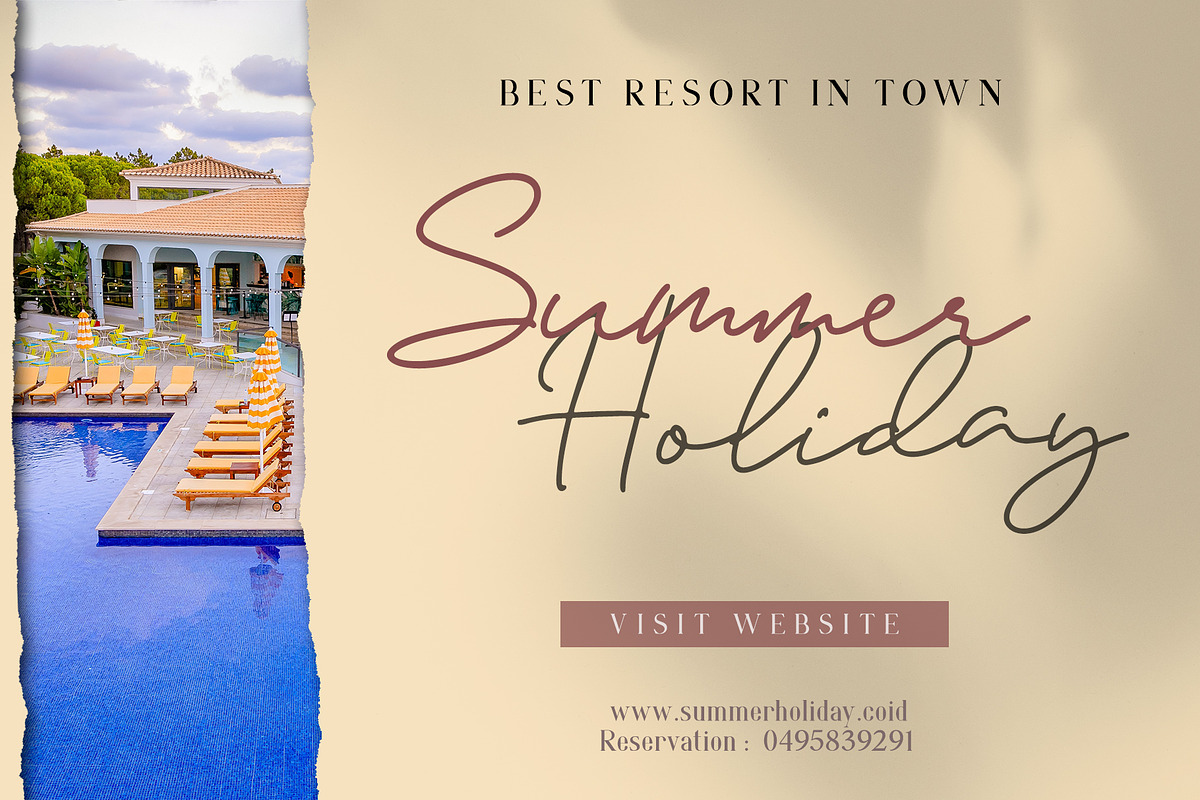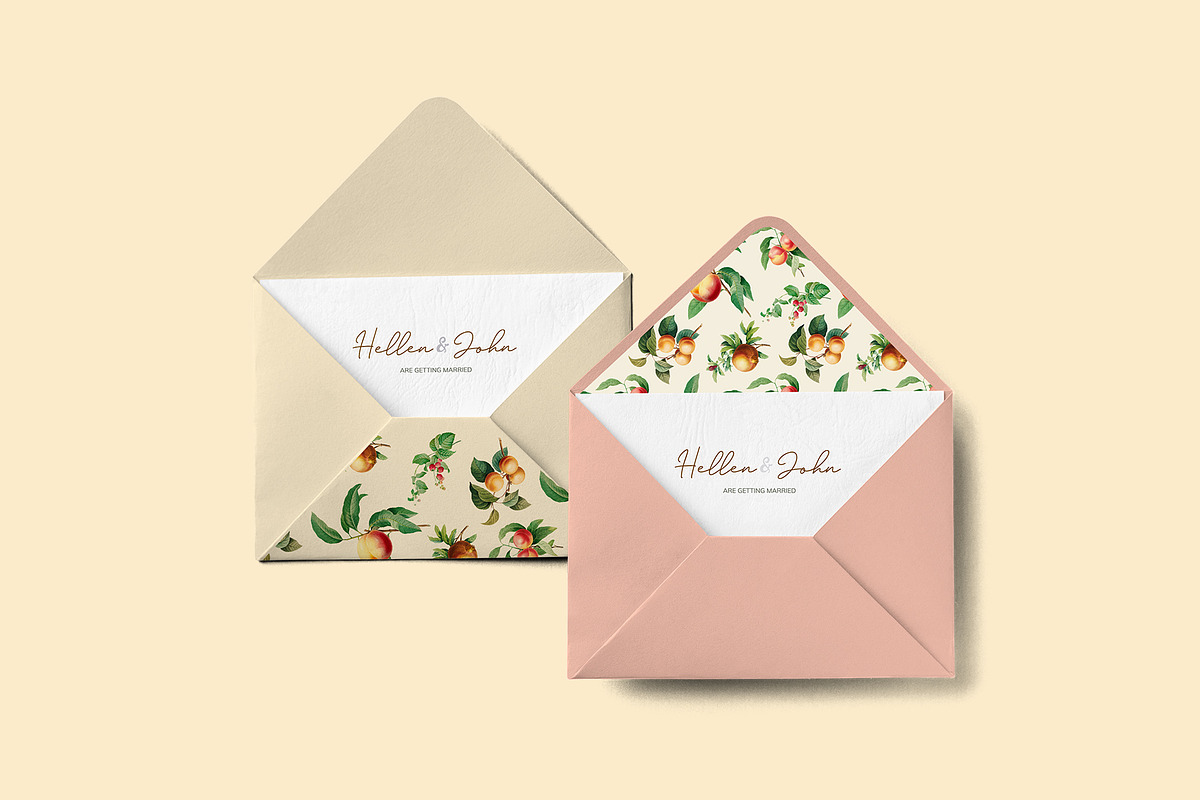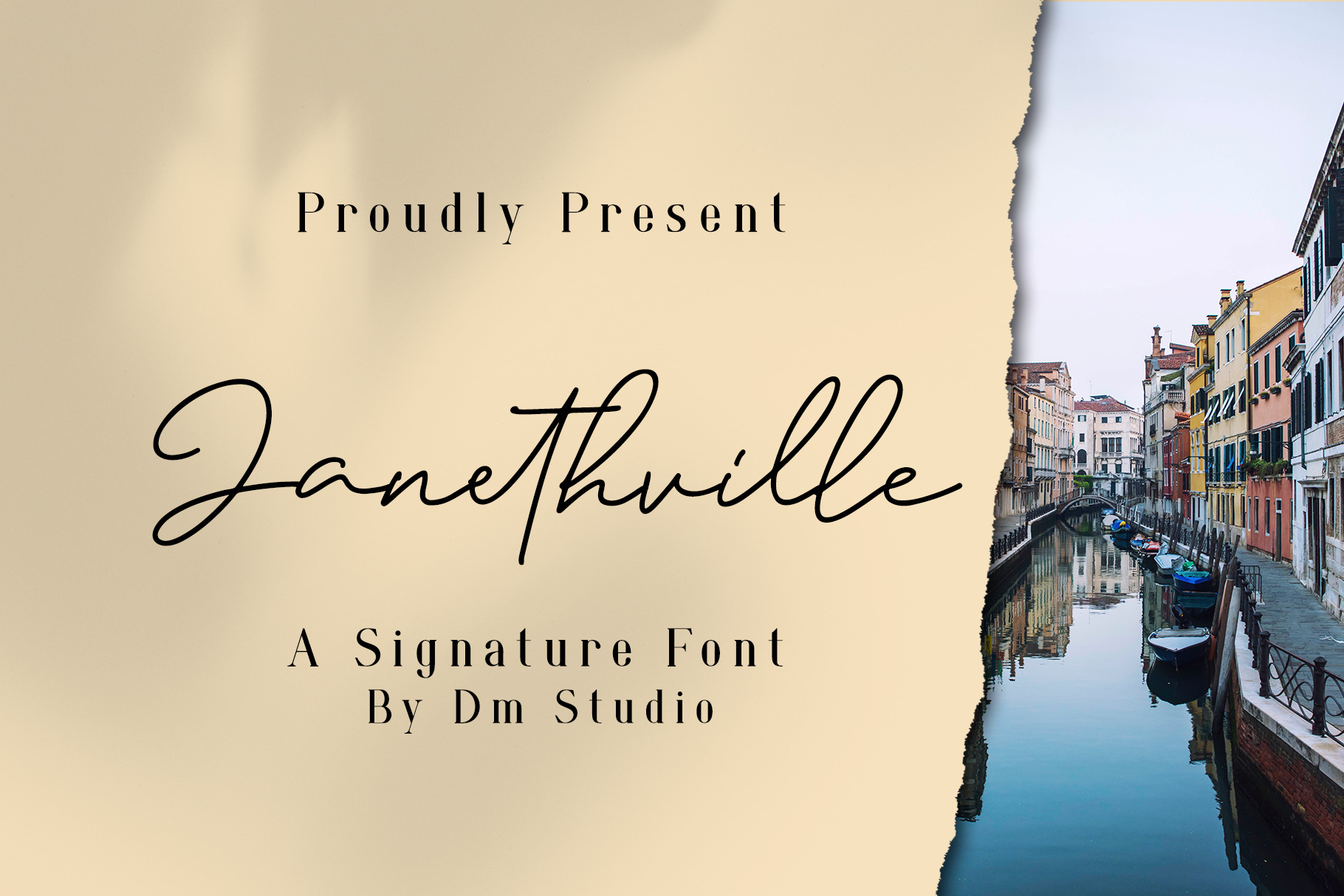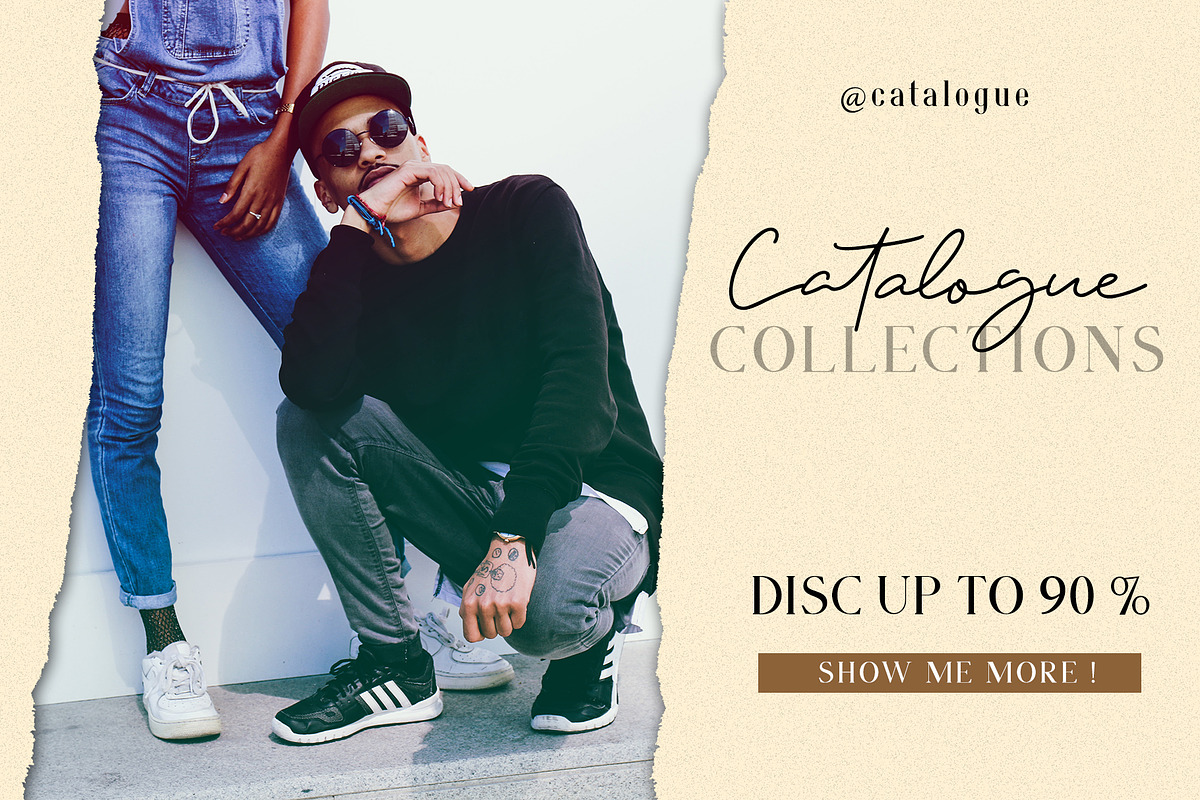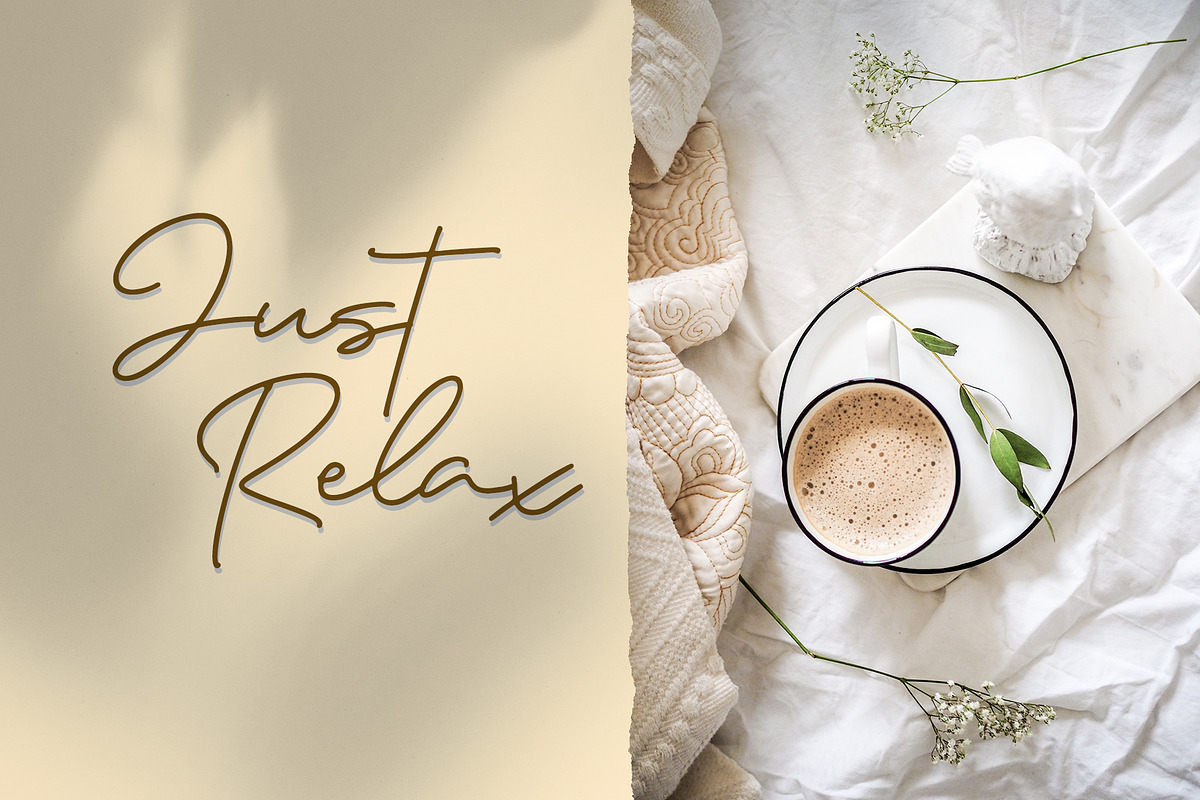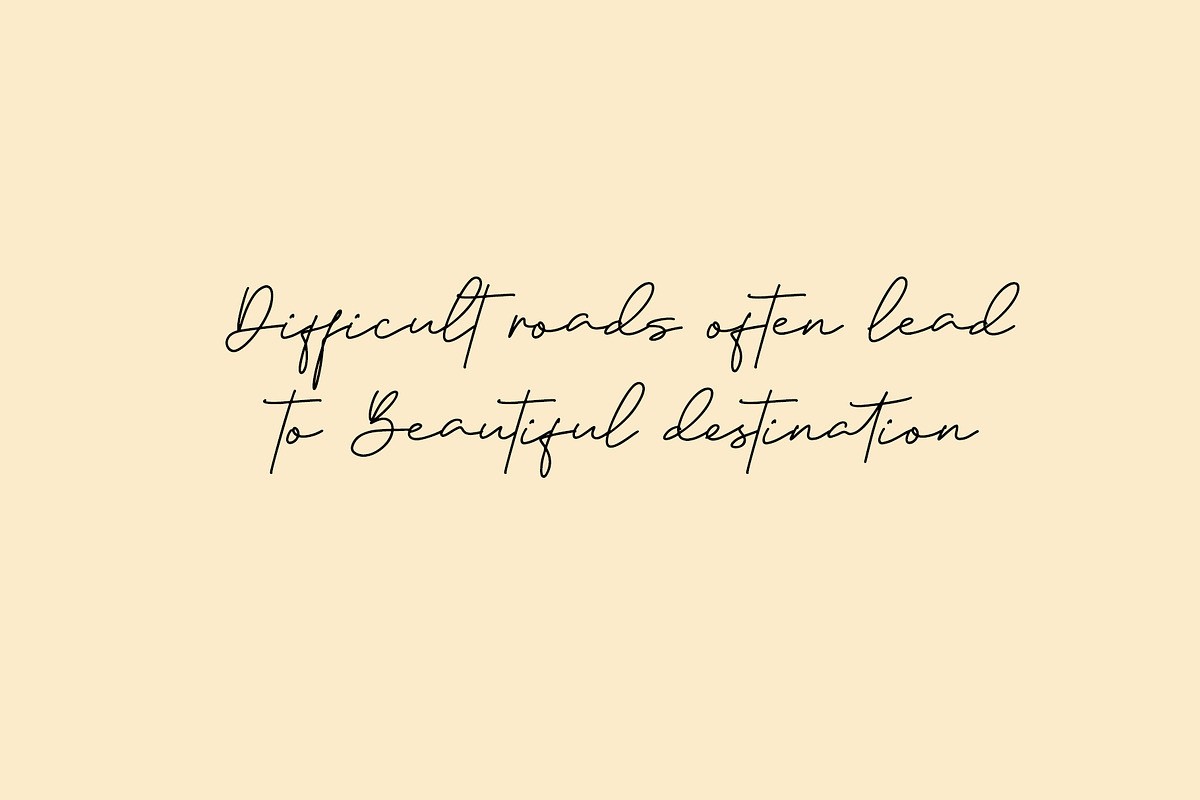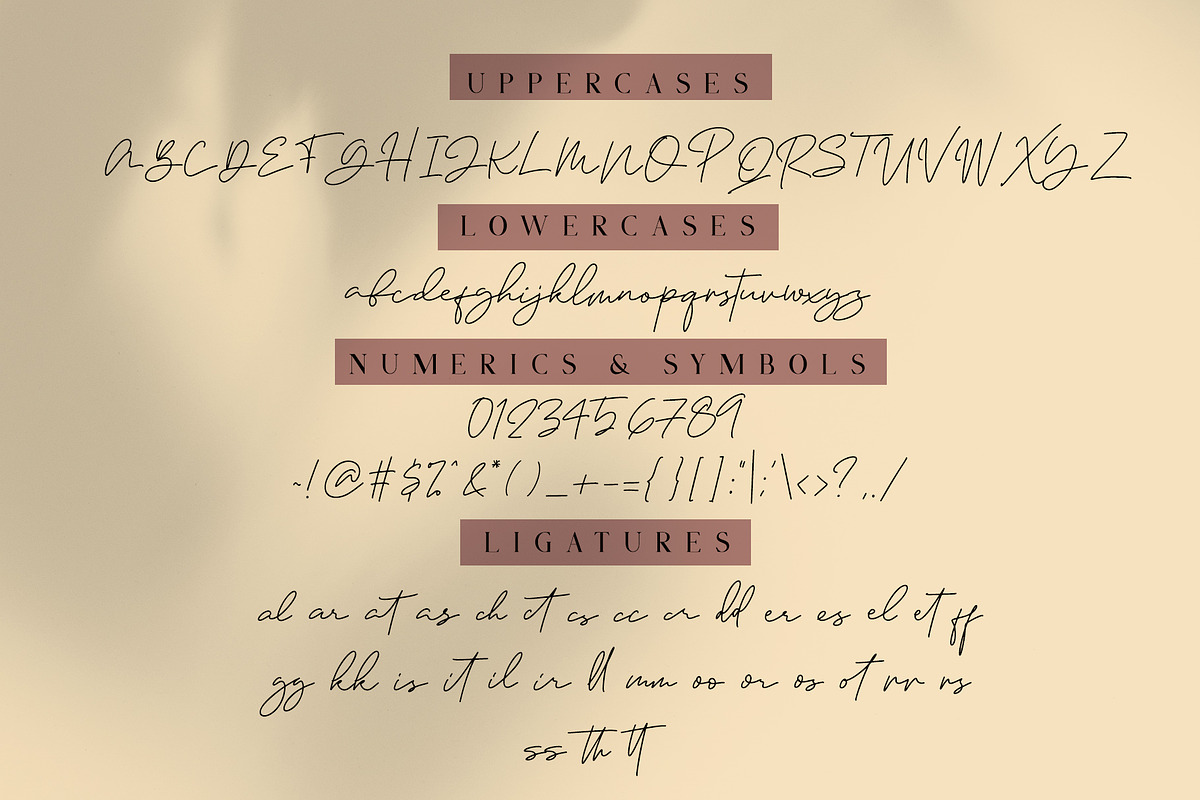
JanethVille - A Signature Font
Janethville, Signature Font Great choice for you who loves the classy things, yet elegant. Also it's pretty easy to use, comes with extra handwritten ligatures to makes your design more gorgeous and natural-look.
- Uppercase, lowercase
- Numeric and Symbols